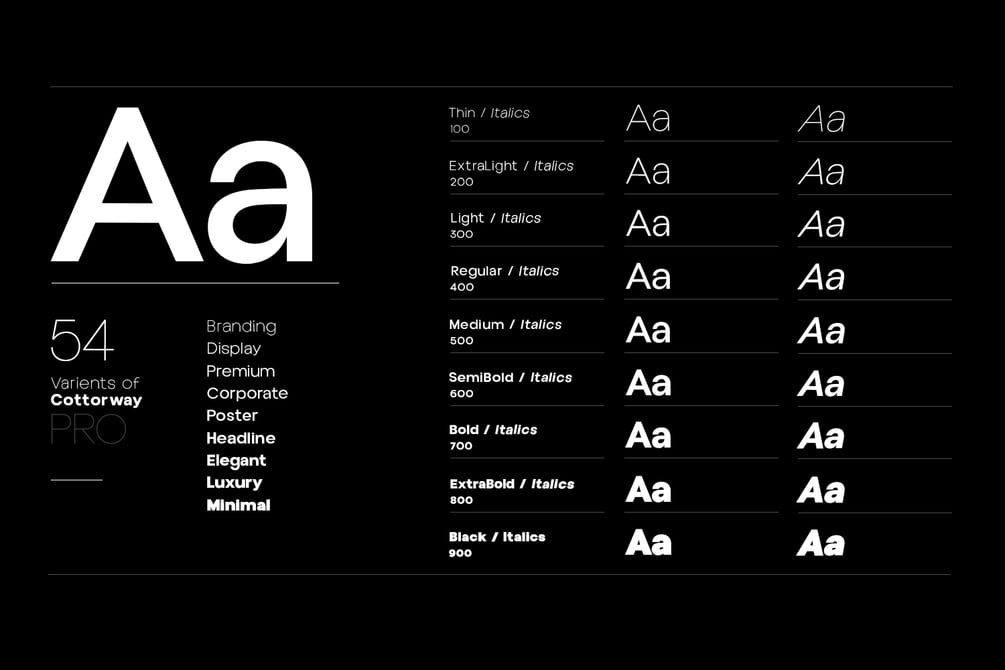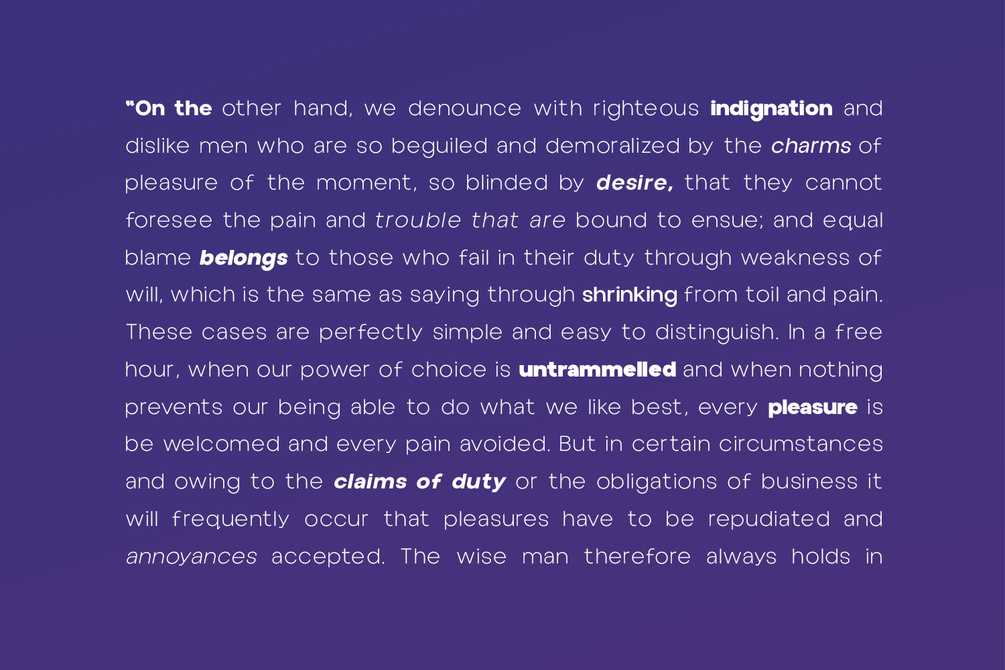
Cottorway Pro Display Typeface
Cottorway Display Pro is a Brand New Elegant Typeface From the Ultimate Cottorway Font Family with 54 Variants. It has a dependable and uncompromising style, with controlled letterforms and modern touches. It looks amazing in logos, magazines, and movies. Cottorway Font would be perfect for branding, headlines, Captions, paragraphs, and posters. The various weights allow you to experiment with a wide range of applications. It's created to make an impression without sacrificing its beauty and readability. It's shown a clean, minimalist, warmth, quirky, yet still purposed to be versatile.
The Typeface includes Nine Weights -Thin, ExtraLight, Light, Regular, Medium, SemiBold, Bold, ExtraBold and Black.
• 54 Variants ( Normal, Italics, Condensed, Condensed Italics, Outline, Outline Italics Included.)
• Numerals and extended punctuation (200+ Glyphs).
• Updated and reworked Glyphs
• Expert kerning and quality crafting.
• Normal, Italic, Condensed and Outline Variants are Included.